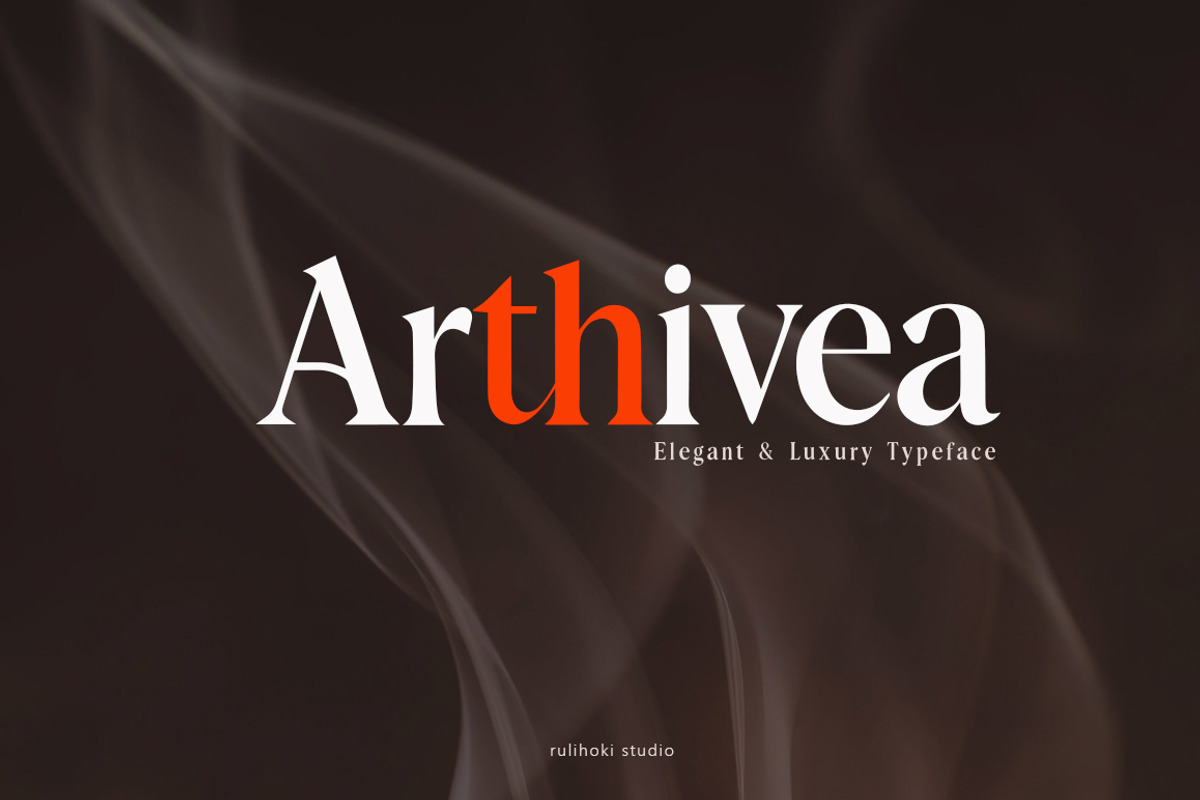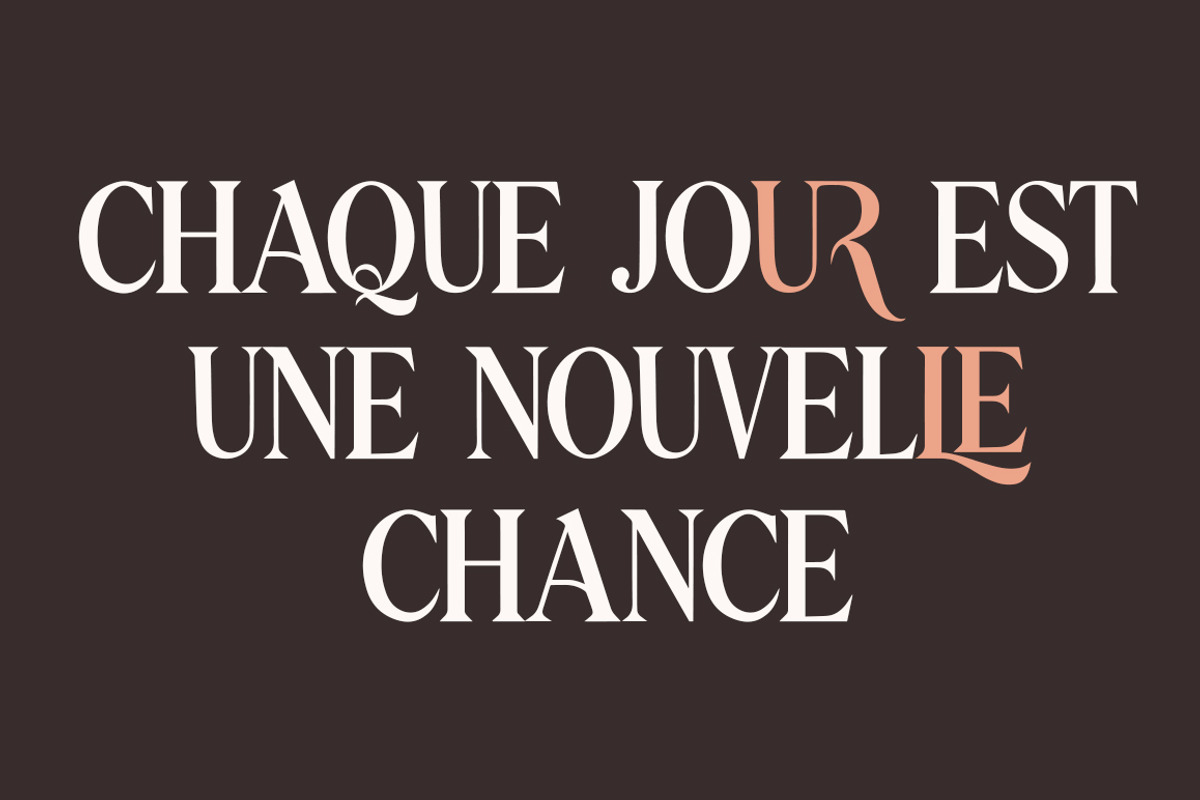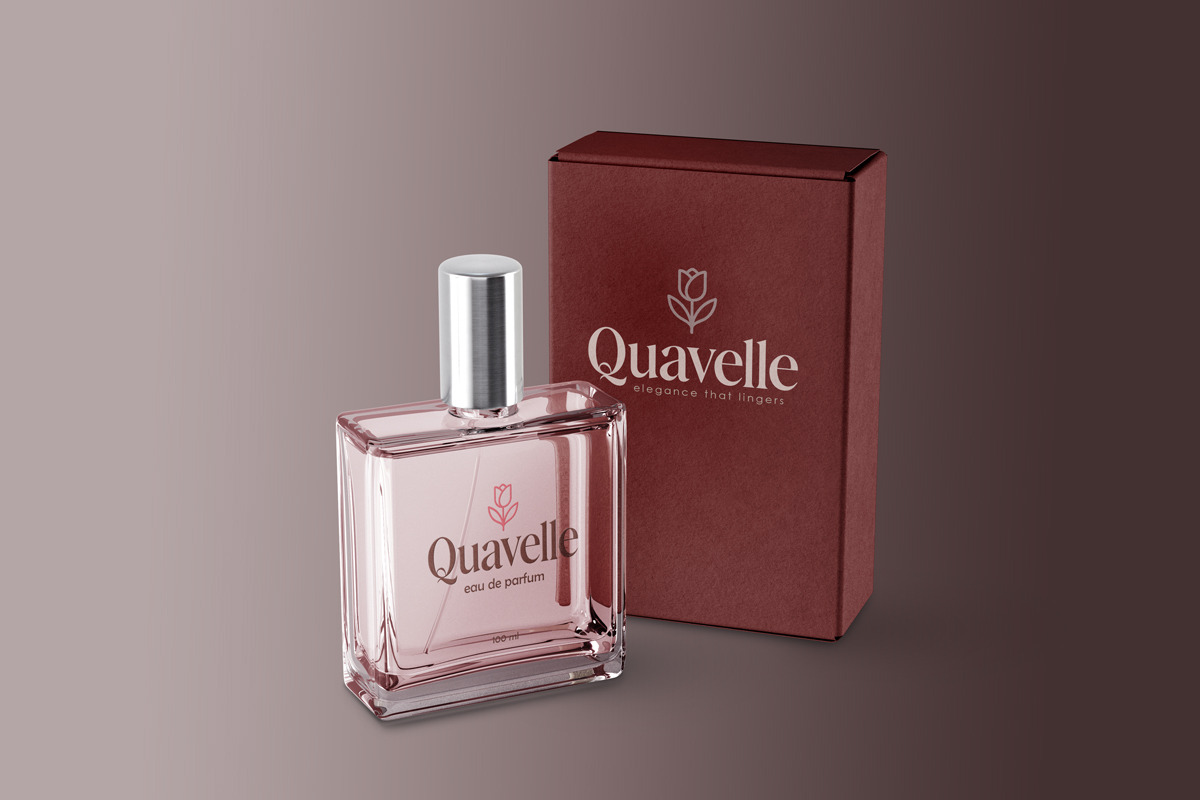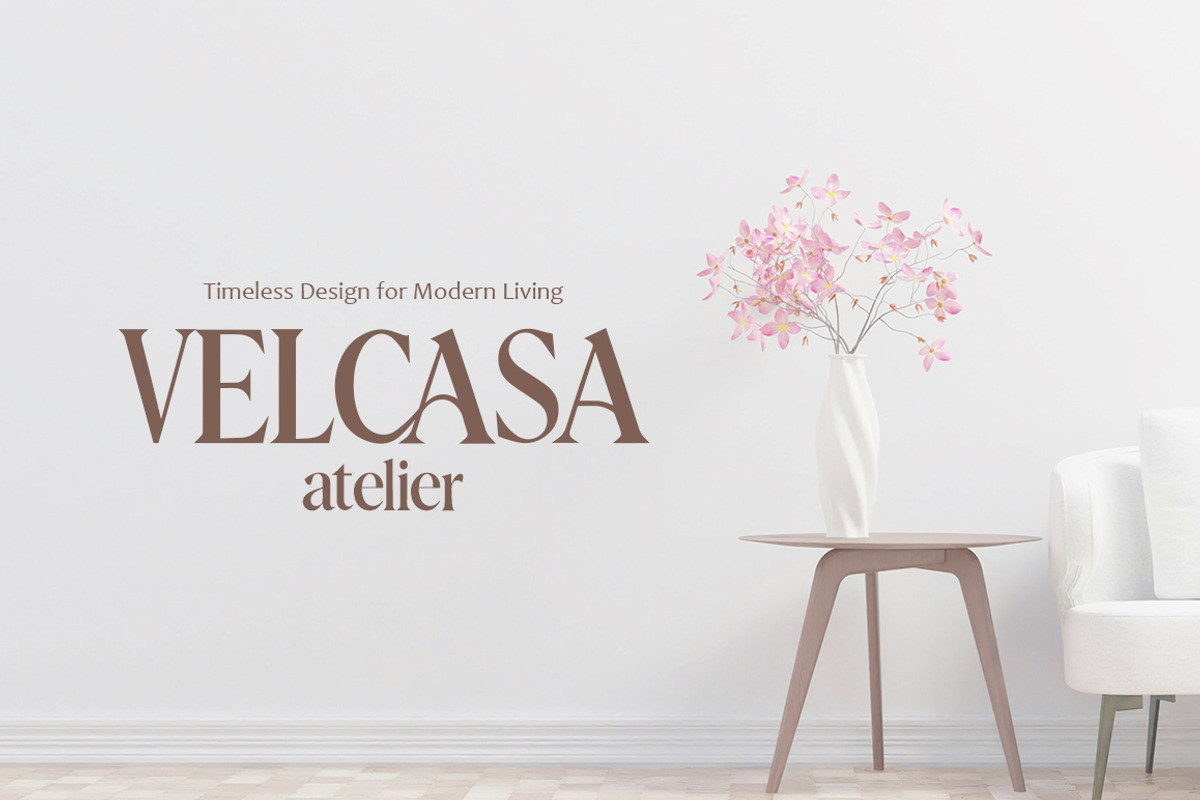
Arthivea
Arthiveais a modern serif typeface designed with elegance, balance, and contemporary sophistication. Featuring refined letterforms, graceful curves, and sharp serifs, Arthivea blends classic serif beauty with a modern editorial touch. This font is perfect for luxury branding, fashion labels, perfume packaging, editorial layouts, logos, invitations, and high-end design projects.
Its stylish character shapes create a timeless yet distinctive appearance, making Arthivea ideal for designers who want to convey elegance, exclusivity, and premium aesthetics. Whether used for headlines, brand identities, or sophisticated typography compositions, Arthivea delivers a polished and fashionable visual presence.